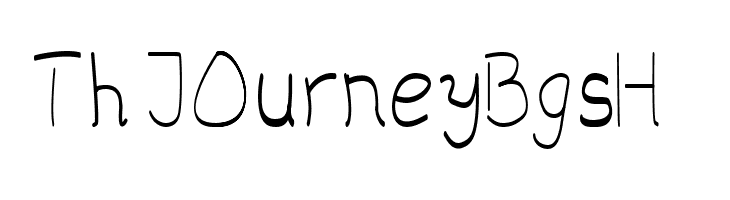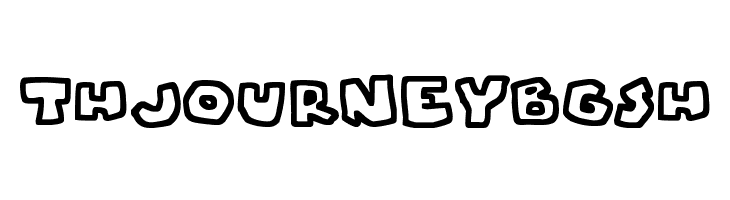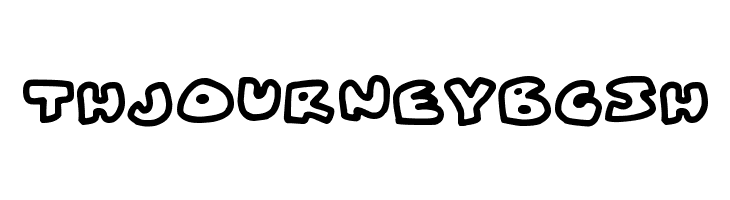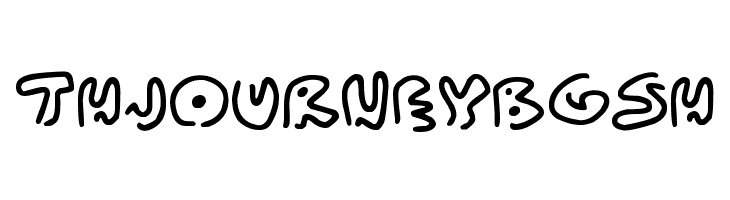
( Fonts by Xerographer Fonts )
A casual handwritten font with a lively and organic appearance.
( Fonts by Darrell Flood )
A bold, playful font with chunky outlines and a whimsical, cartoonish style.
( Fonts by Darrell Flood )
A playful, bold font with thick, rounded outlines and a whimsical style.
( Fonts by Darrell Flood )
A playful, bold outline font with a cartoonish and dynamic style.